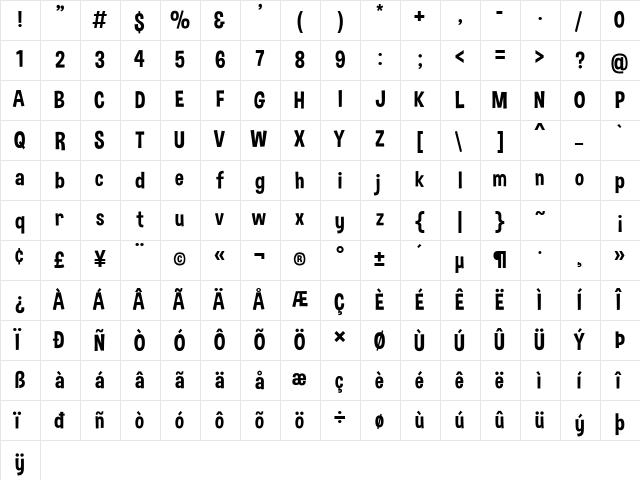
Dimbo Regular
| Designer | Jayvee D. Enaguas (Grand Chaos) |
Design Context for Dimbo Typeface
Dimbo takes a measured approach to typography — its balanced proportions and neutral character make it a reliable workhorse for both digital and print work.